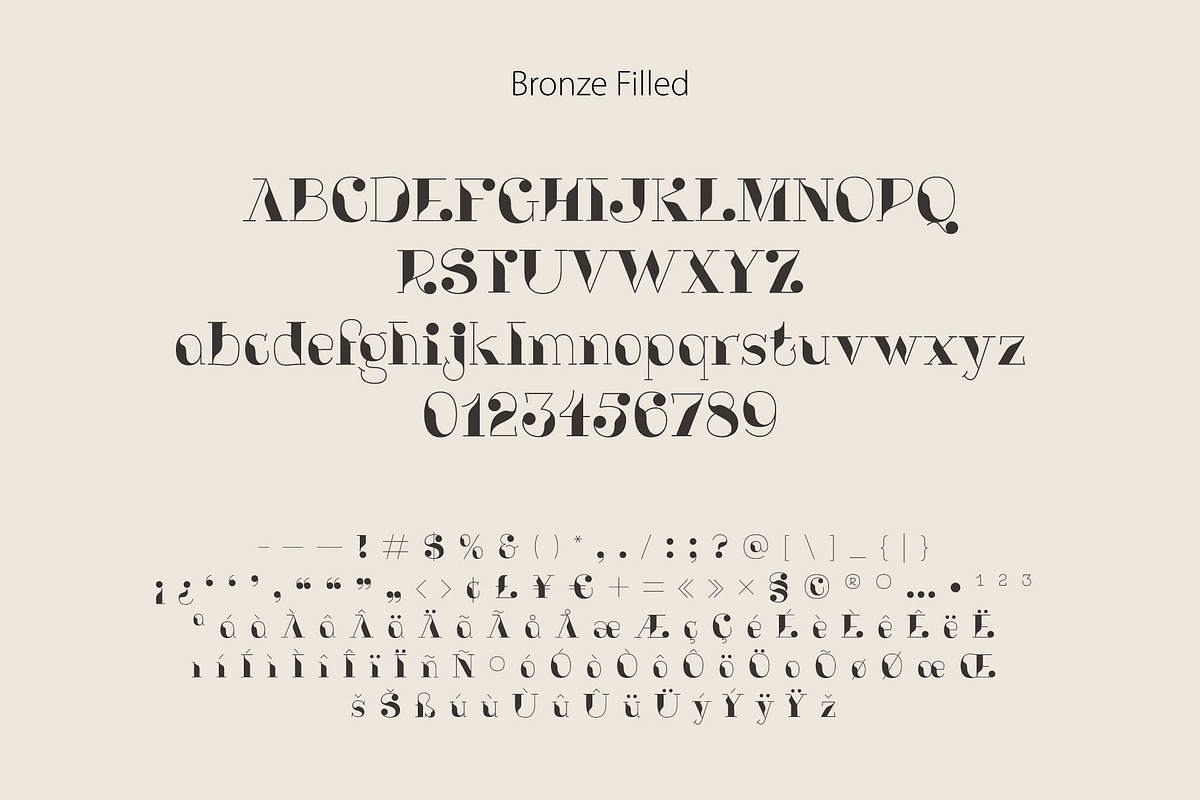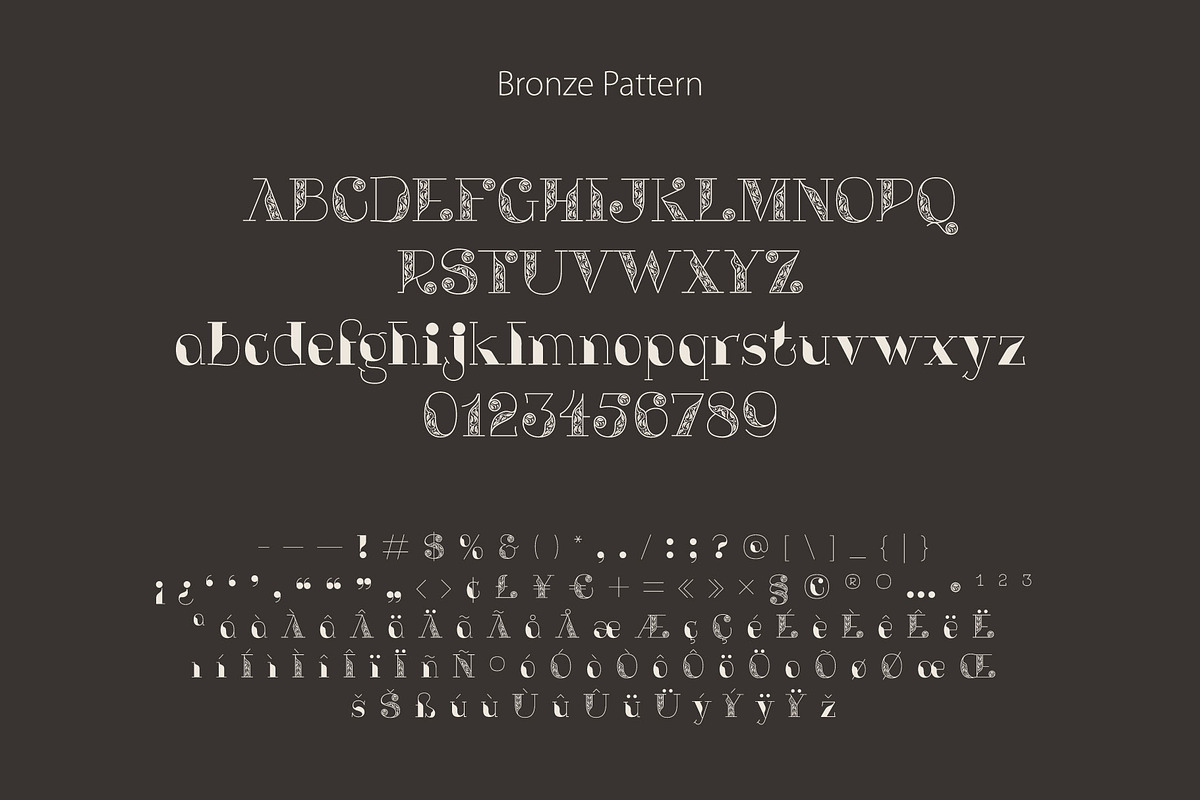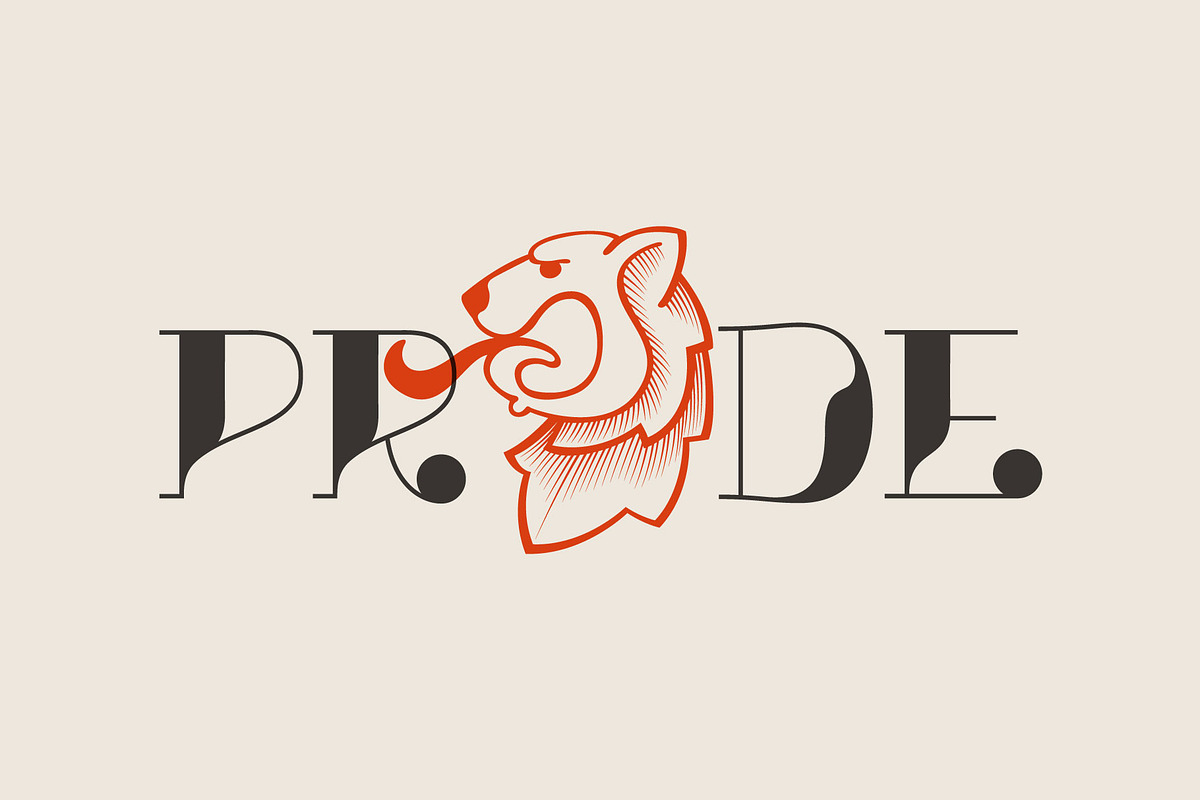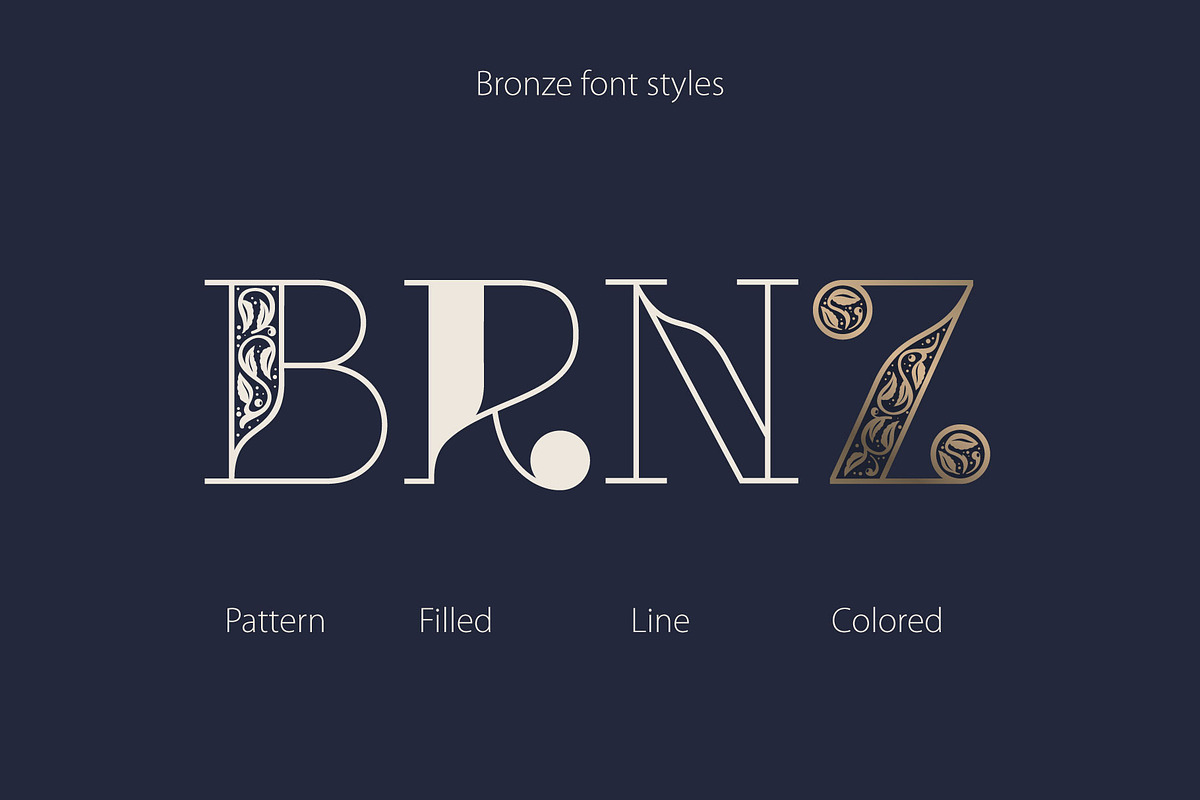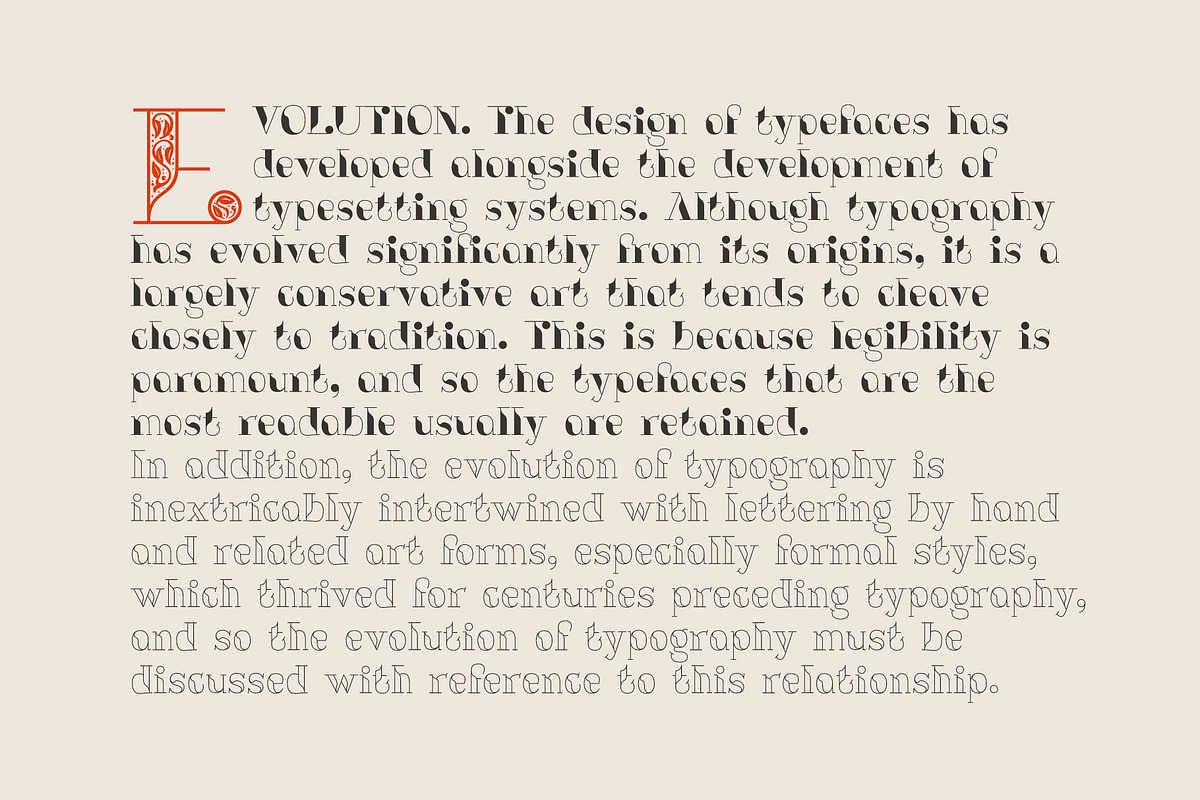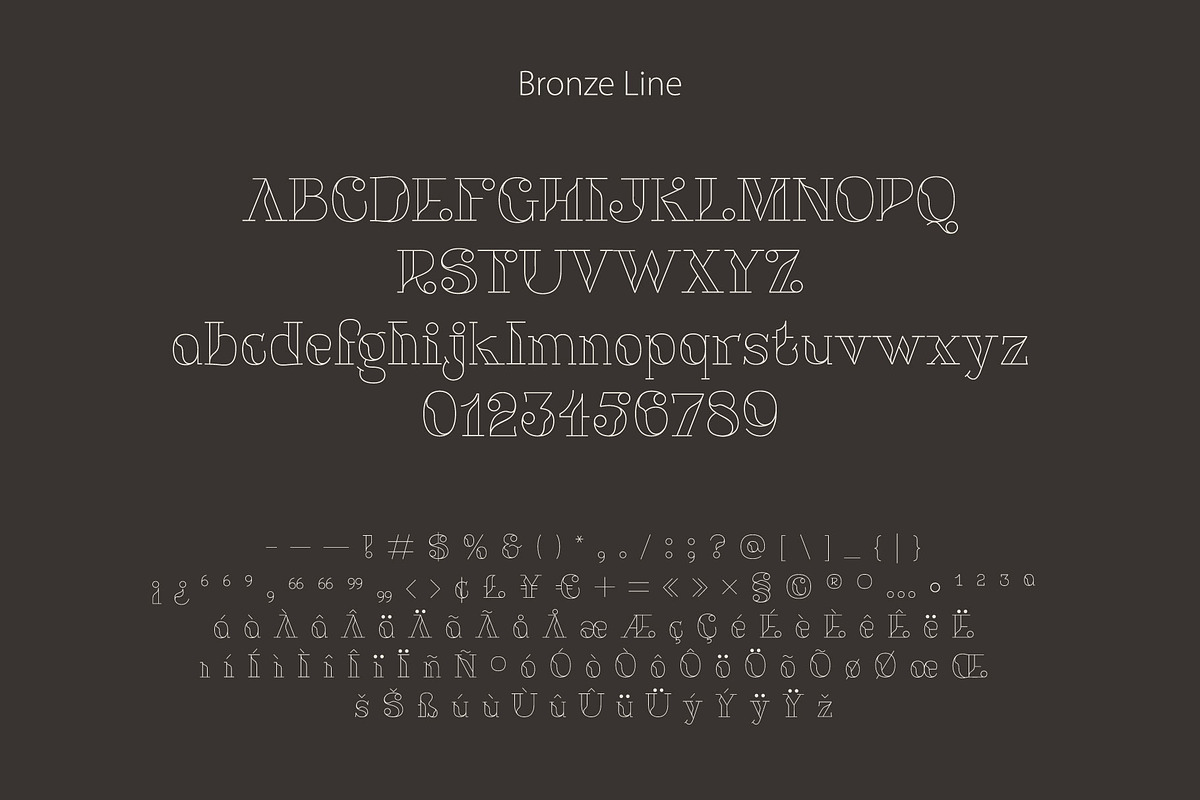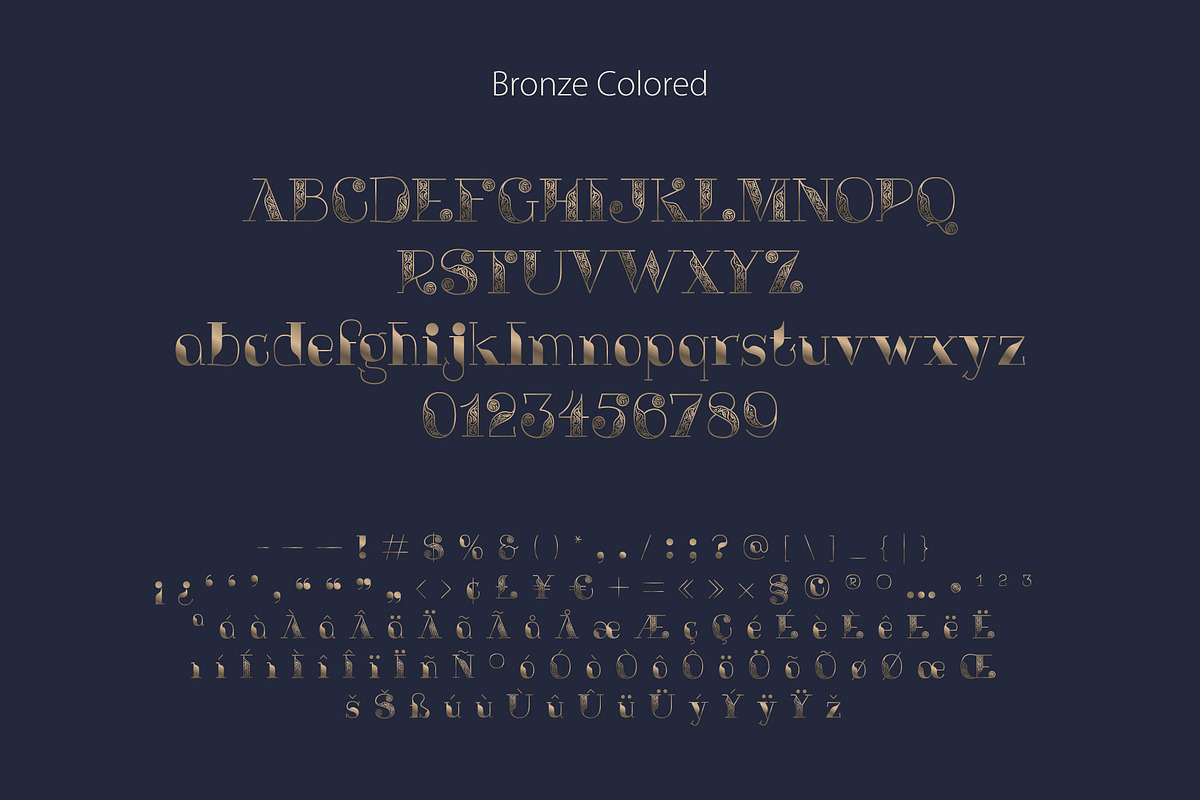
Bronze font
Vintage font with premium decoration. Classic line serif font. Perfect to use in any alcohol labels, glamour posters, luxury identity, etc.
Four font styles: pattern, filled, line and colored